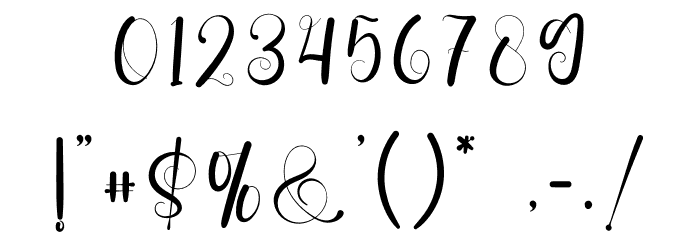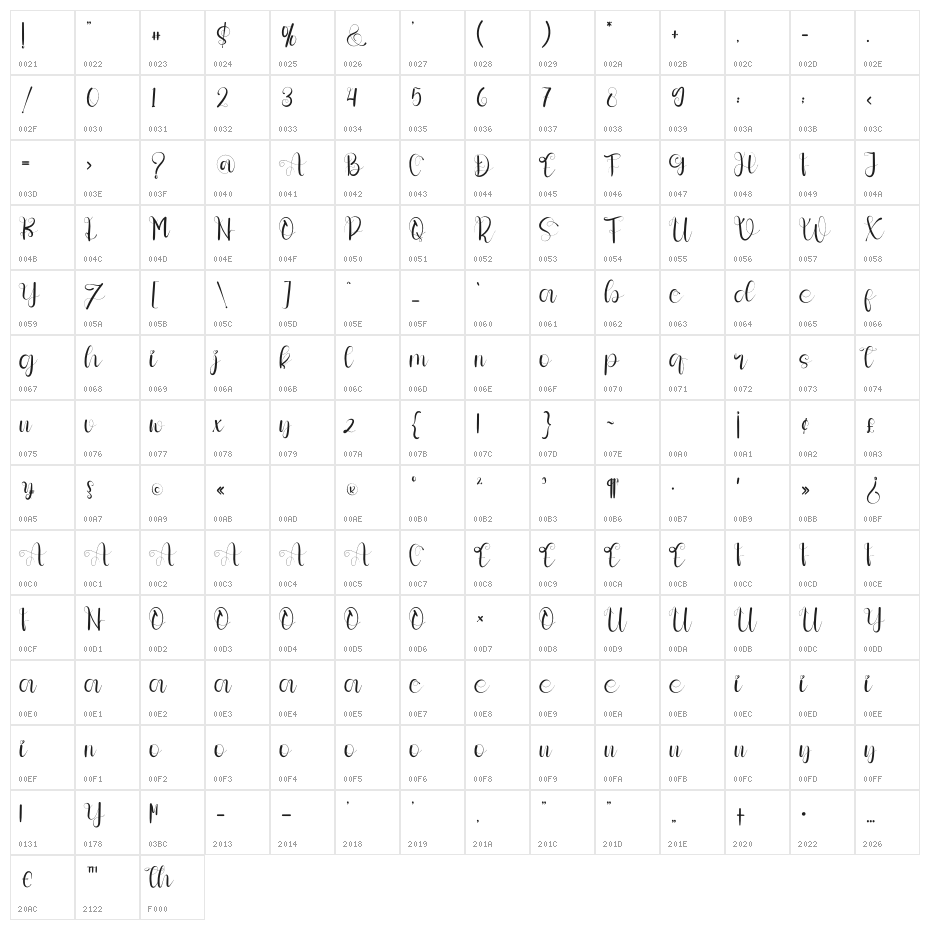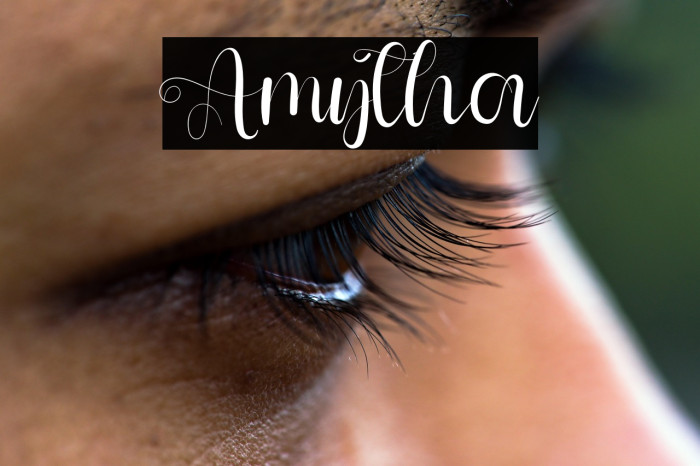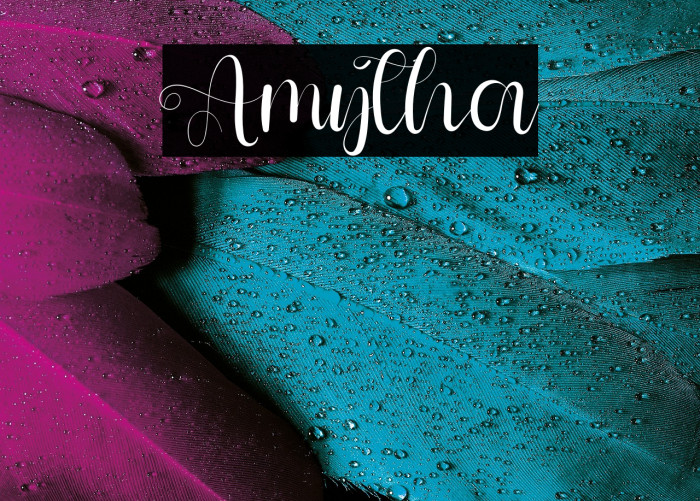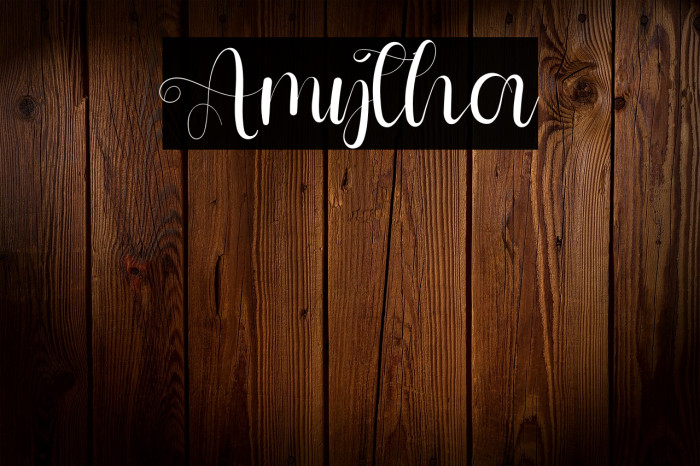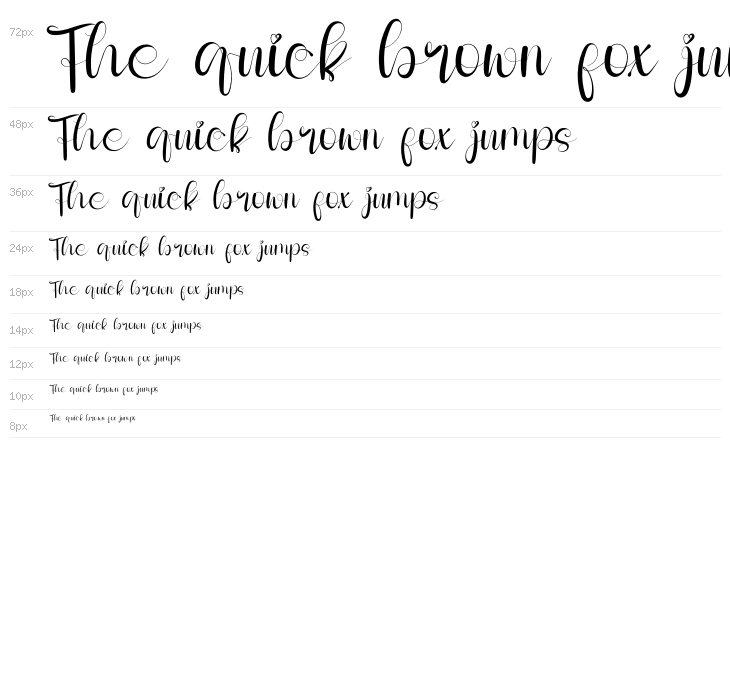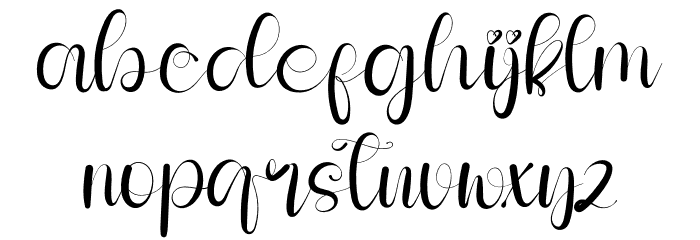
Amytha Font
Amytha Description
This elegant script font features beautifully flowing characters with intricate swashes and flourishes. The uppercase letters are particularly ornate, with loops and curls that add a touch of sophistication and charm. The lowercase letters maintain a graceful continuity, making the font ideal for creating a sense of elegance and luxury. The numerals and special characters are designed with the same attention to detail, ensuring a cohesive look across all elements. This font is perfect for projects that require a touch of class and refinement.
| Use Case | Headlines, Invitations, Branding |
| Proposed Projects | Ideal for wedding invitations, luxury branding, elegant stationery, and decorative headlines. |